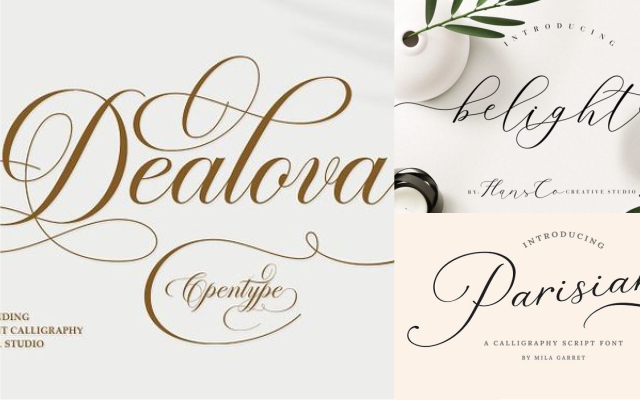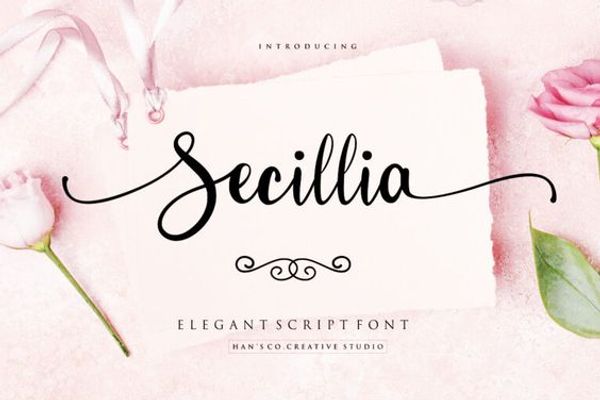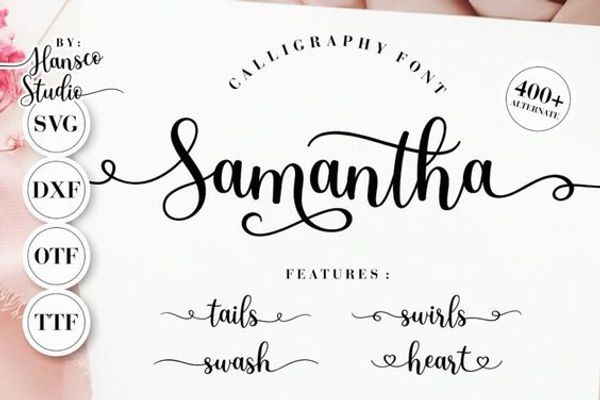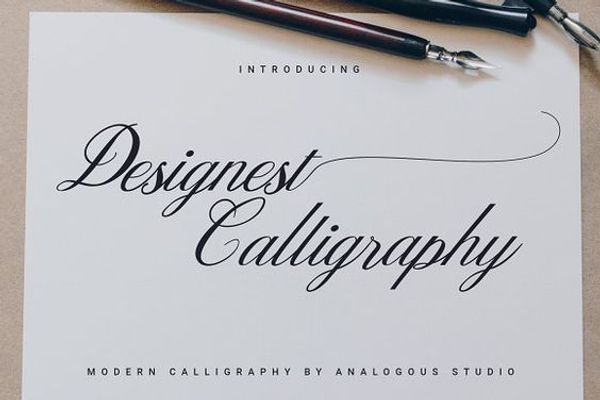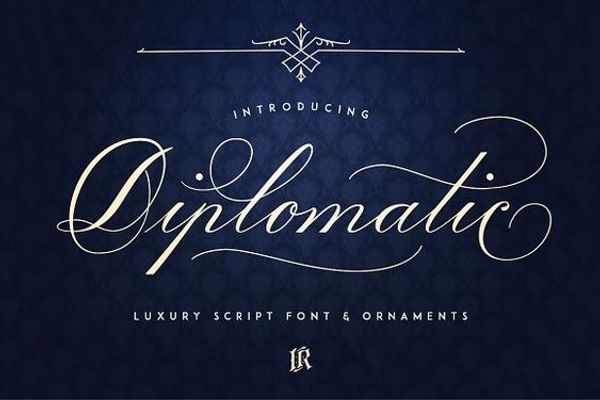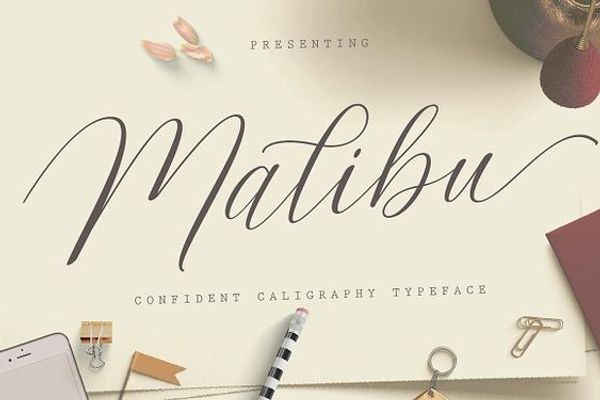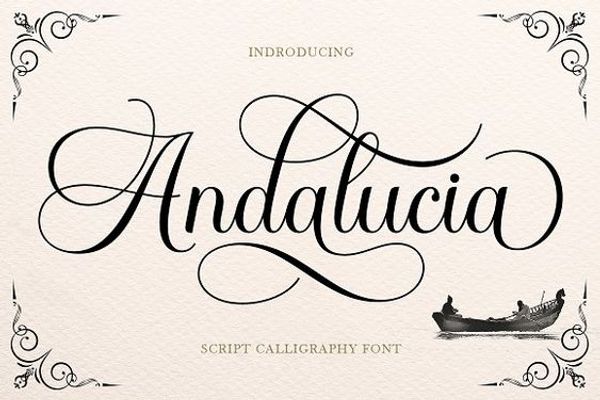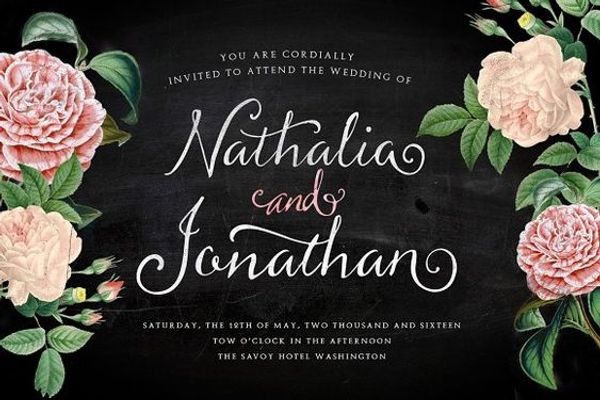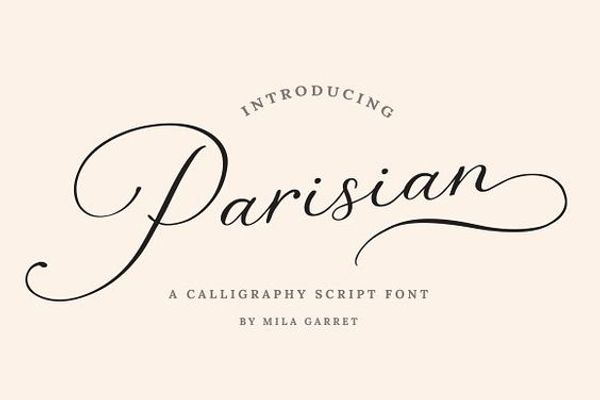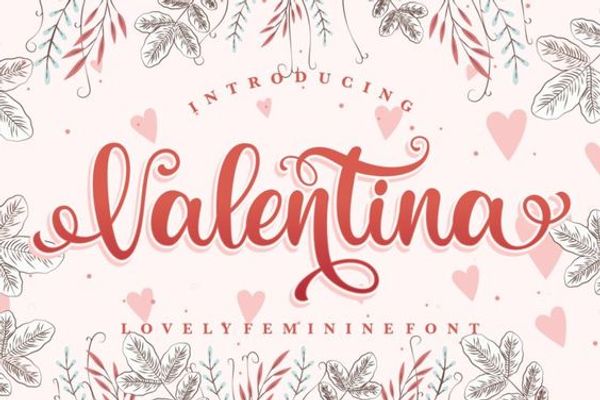
15 Best Elegant Fonts Calligraphy for Instagram & Canva
In the digital age, the importance of selecting the perfect fonts for your online content cannot be overstated. Whether you’re curating an aesthetic Instagram feed or designing an engaging online store, fonts calligraphy can transform your work from ordinary to extraordinary.
However, while aesthetics is crucial, it’s equally vital to ensure that your chosen fonts are highly readable, as readability directly impacts your audience’s understanding and engagement.
The world of calligraphy lettering offers many styles, from intricate swirls to graceful cursive fonts and even fonts cricut. In this article, we have gathered the fifteen exceptionally readable fonts calligraphy available for you to download and incorporate seamlessly into your projects.
Without further delay, let’s explore these mesmerizing fonts for Instagram.
1. Lavonia Font
With its understated simplicity, Lavonia is a top choice for those who appreciate unadorned fonts cursive. Its design strikes a harmonious balance between elegance and readability, making it suitable for various applications. Unlike overly embellished fonts, Lavonia maintains clear distinctions between capital and lowercase letters, facilitating effortless readability.
One notable feature of Lavonia is the sharp contrast between capital and small letters, adding a touch of sophistication. The clarity of the lines connecting each letter ensures fluid readability. This versatile font can be a brand name if you haven’t settled on one yet. And with a name as memorable as “Lavonia,” simplicity meets sophistication, making it an ideal choice for various design projects.
2. Andalucia Font
Andalucia is a font that effortlessly marries readability with artistic flair. At first glance, its base font appears deceptively easy to read, defying the conventions of typical fonts calligraphy. However, a closer inspection reveals the magic of elongated and gracefully curved tails that adorn most of its letters.
This font is perfect for book covers or brand names, as its clarity ensures accessibility for readers of all ages. Moreover, Andalucia allows for customizable connecting lines among letters, offering the flexibility to create subtle swirls or maintain a straightforward look without compromising readability.
3. Butterscotch Typeface Font
If you’re designing invitations for a party, whether a wedding or a birthday celebration, the Butterscotch Typeface is your sweetest choice. True to its name, this font exudes an endearing charm while maintaining clarity in its lettering.
As a calligraphy font, Butterscotch Typeface may lack excessive curves, but it more than compensates with its undeniable beauty. Its playful and inviting design evokes imagery from beloved animated classics like Tinker Bell and Peter Pan.
4. Dealova Font
Dealova is a swirly font that shares similarities with Andalucia but boasts more elongated and delicate tails. While these tails may appear intricate, the letters themselves remain remarkably easy to read. The baseline remains consistently even, except for the slightly descended capital letters.
When discussing Dealova’s unique charm, one cannot overlook the intricate loops within the tails of each letter. For instance, the “D” letter exhibits more loops than the middle “L” letter. On the other hand, the “A” letter features an elongated tail that descends to meet the fine tail of the “D” letter, creating the illusion of a curved underline.
True to its name, Dealova is the perfect choice for romantic-themed events. If your Instagram account or online store caters to this passionate niche, look no further.
5. Parisian Vintage Calligraphy Script Font
For those wielding the artistic prowess of Procreate to craft book designs or bakery store visuals for clients, the Parisian Vintage Calligraphy Script is a compelling option. This cursive font strikes a harmonious balance between simplicity and elegance, making it a standout choice among fonts calligraphy.
The grace of Parisian Vintage Calligraphy Script lies in its gentle curves, particularly accentuated in the capital, long, and last letters. These curves contribute to its aesthetic appeal while maintaining the clarity required for effective communication.